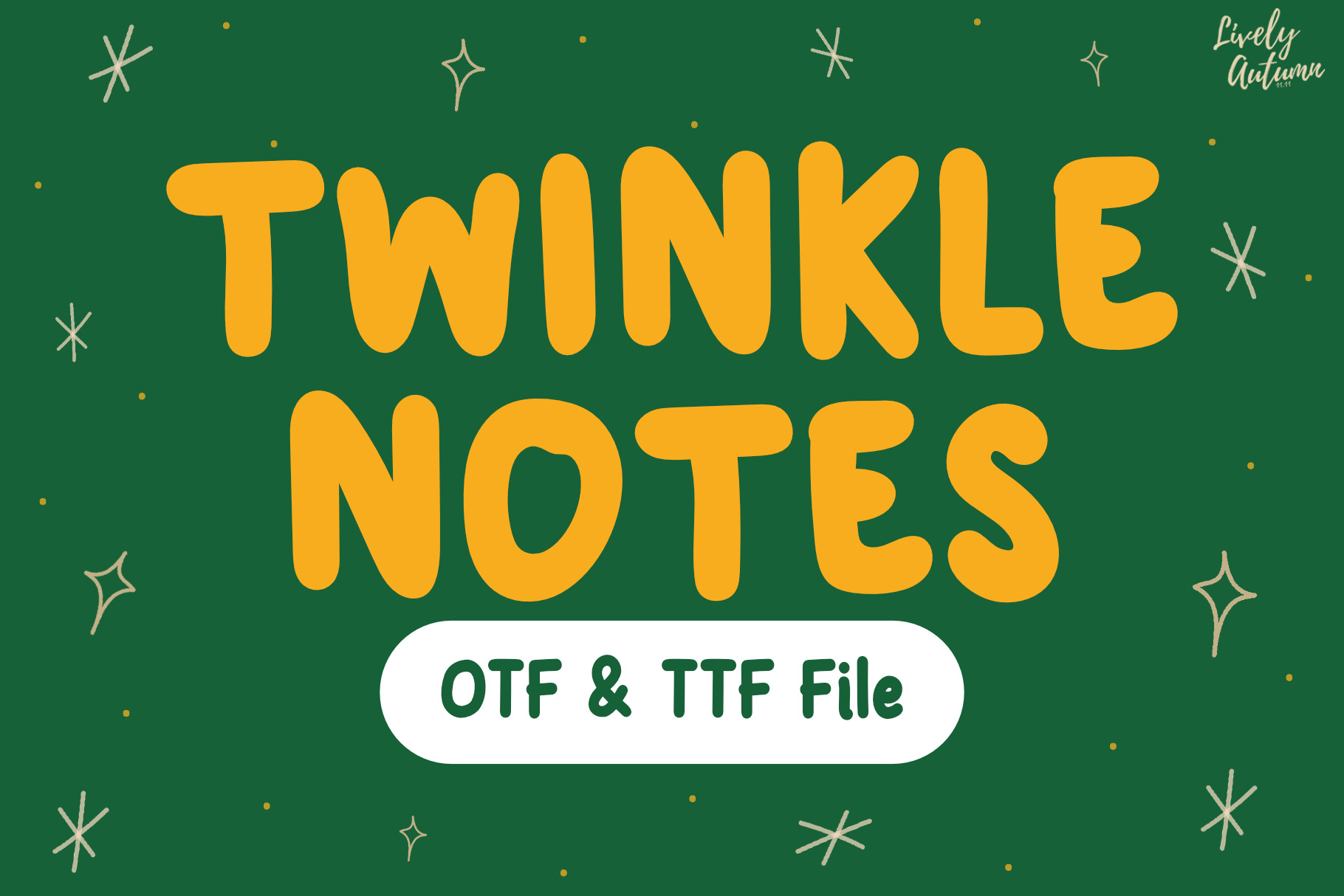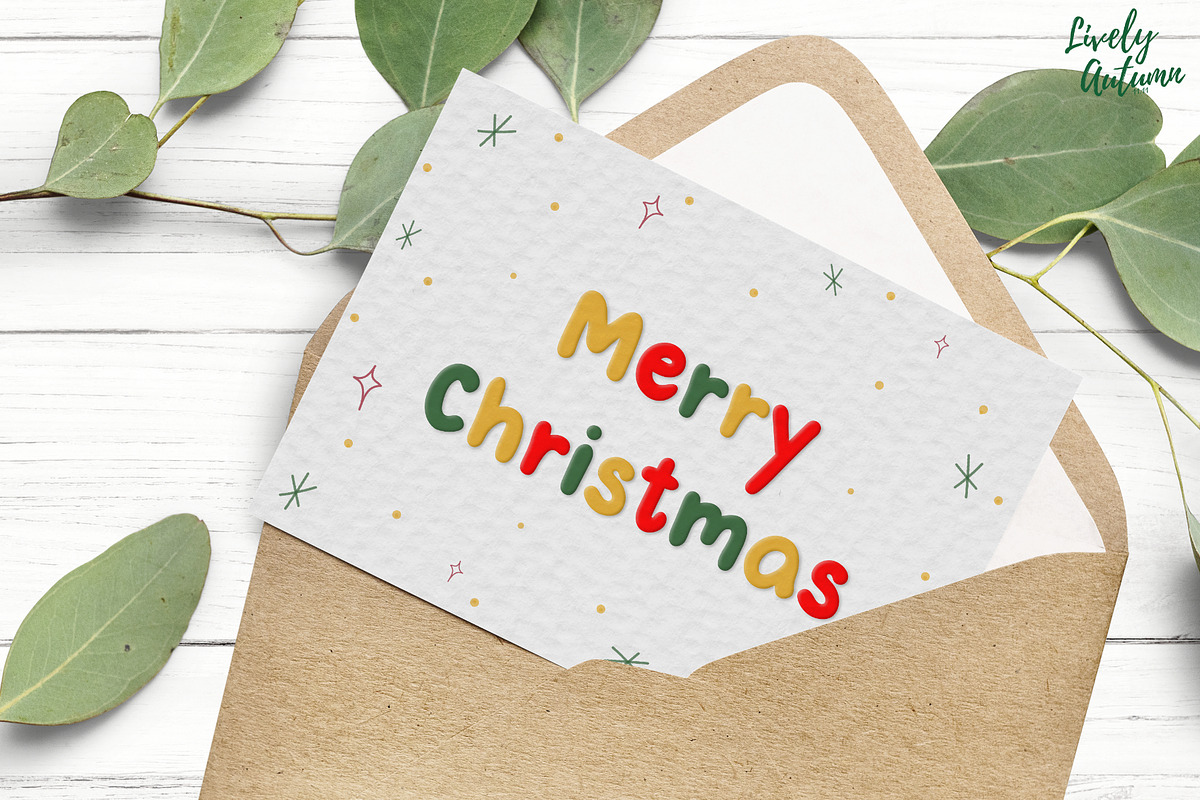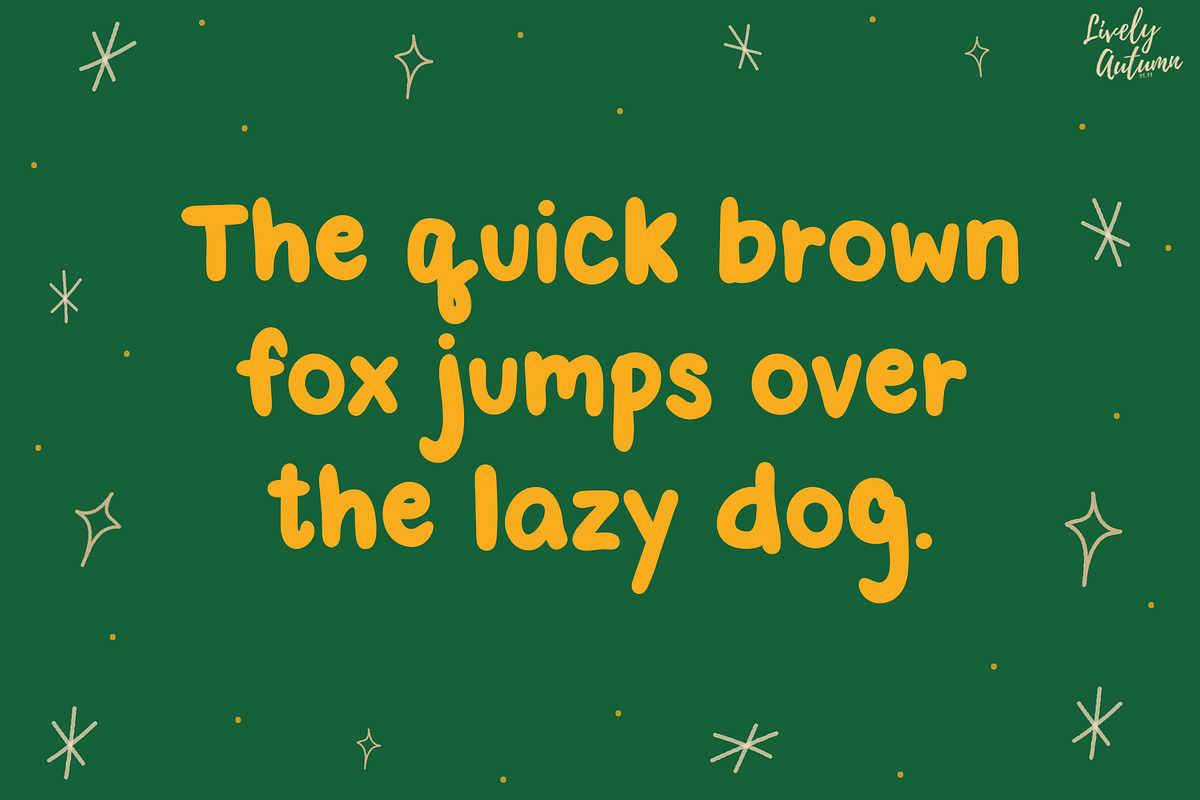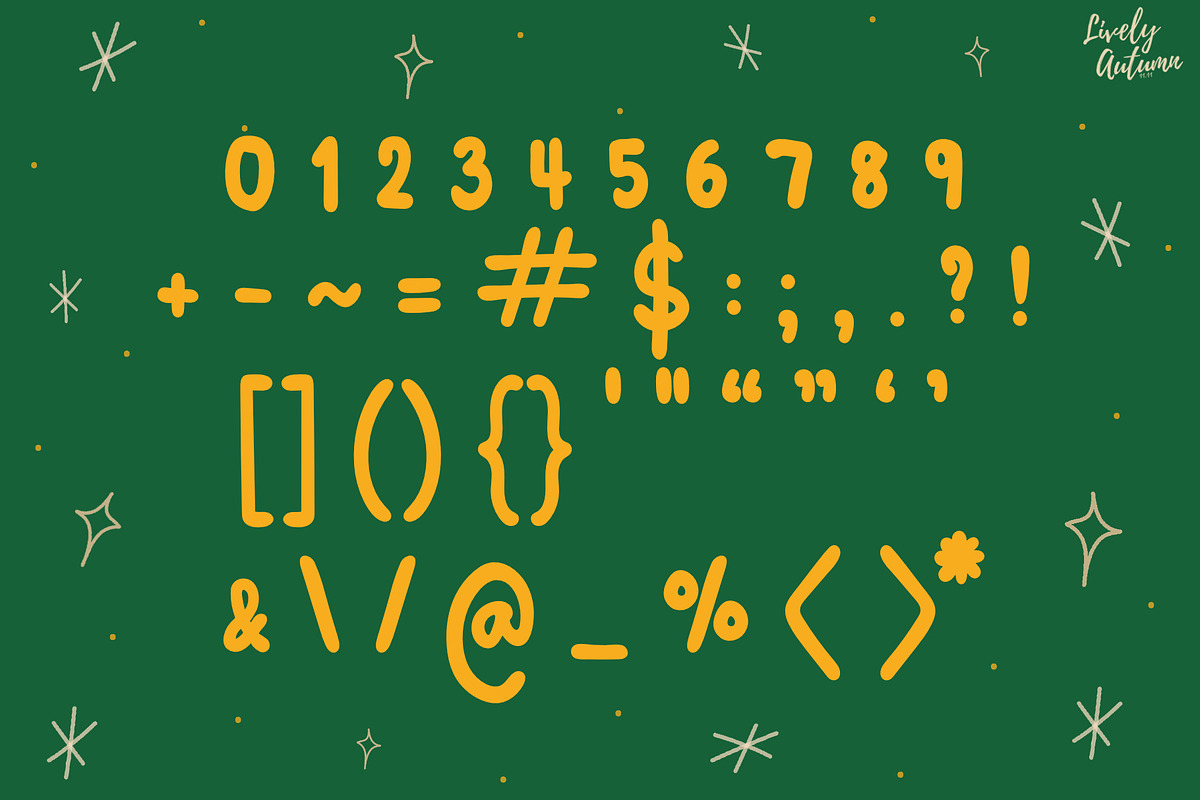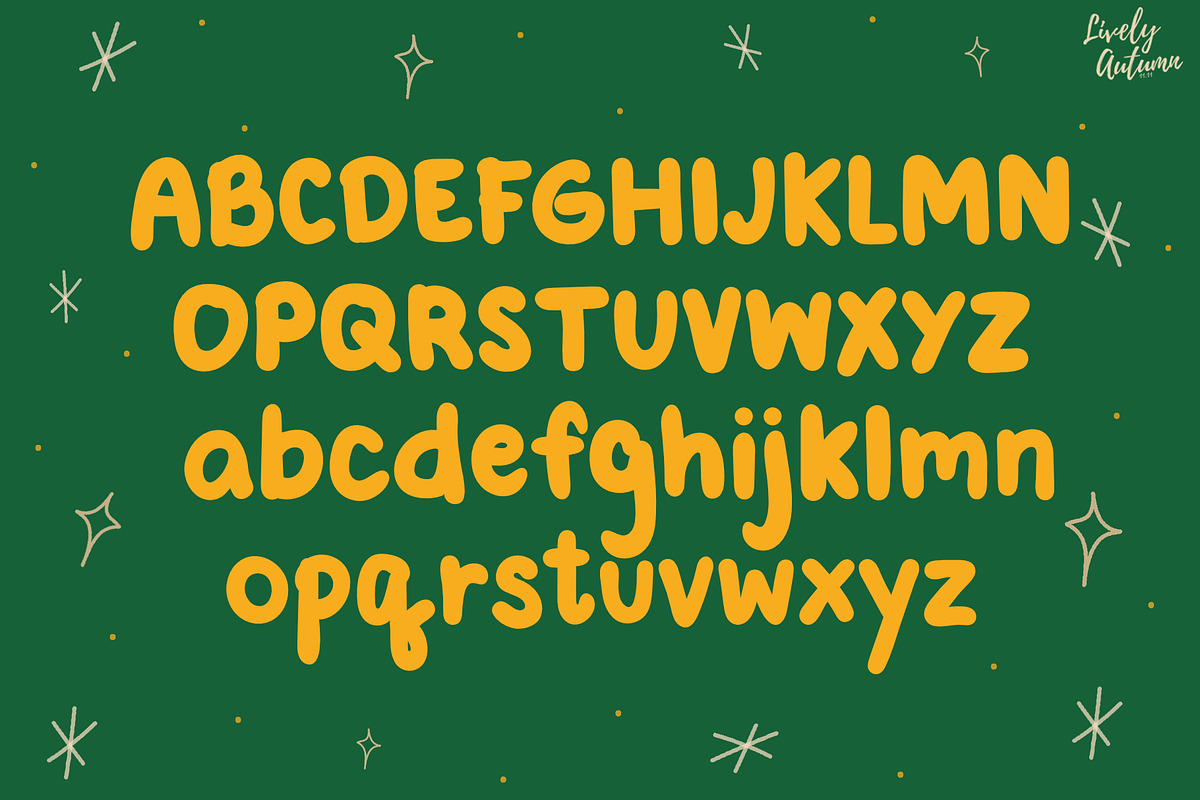
Twinkle Notes | Handwriting font
Twinkle Notes Font is a cute casual Sans Serif handwritten font. Perfect for your personal projects and various projects. From invitations to posters, social media graphics, journals, and much more.
- Font includes: uppercase, lowercase, numbers, and punctuation.